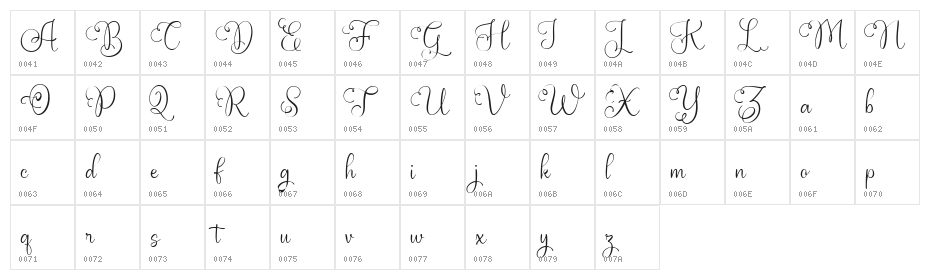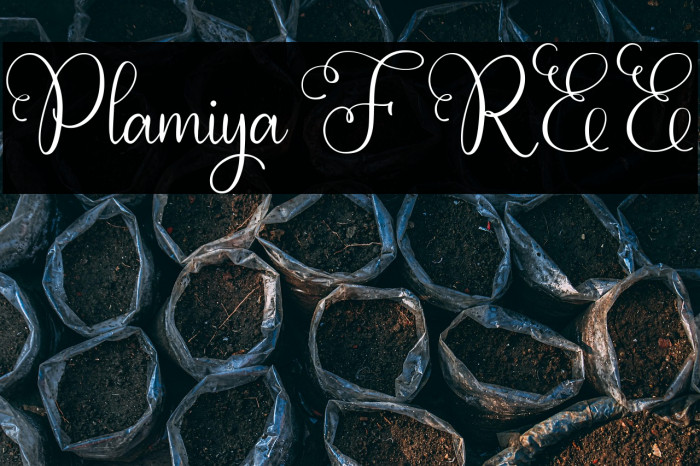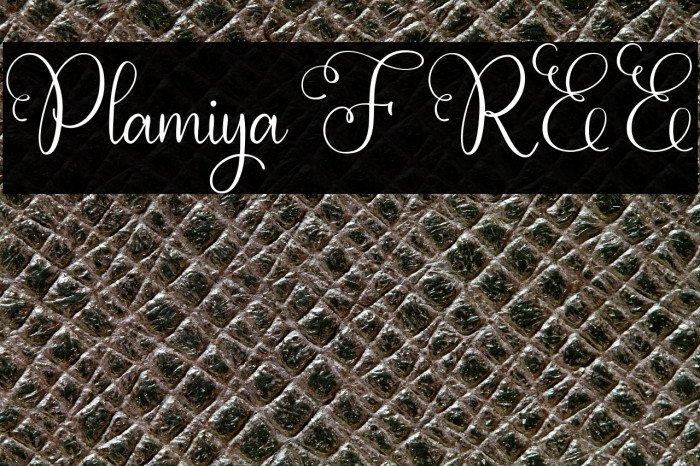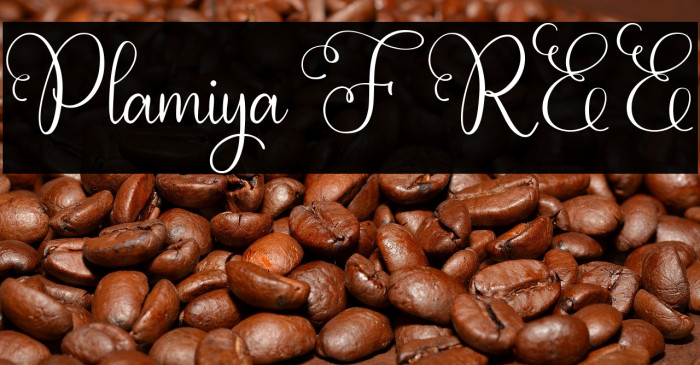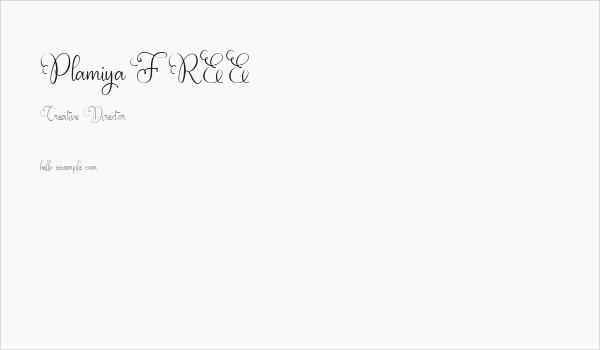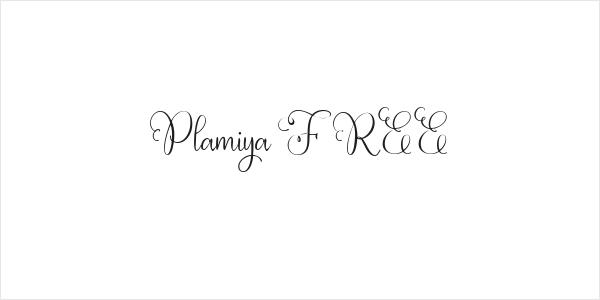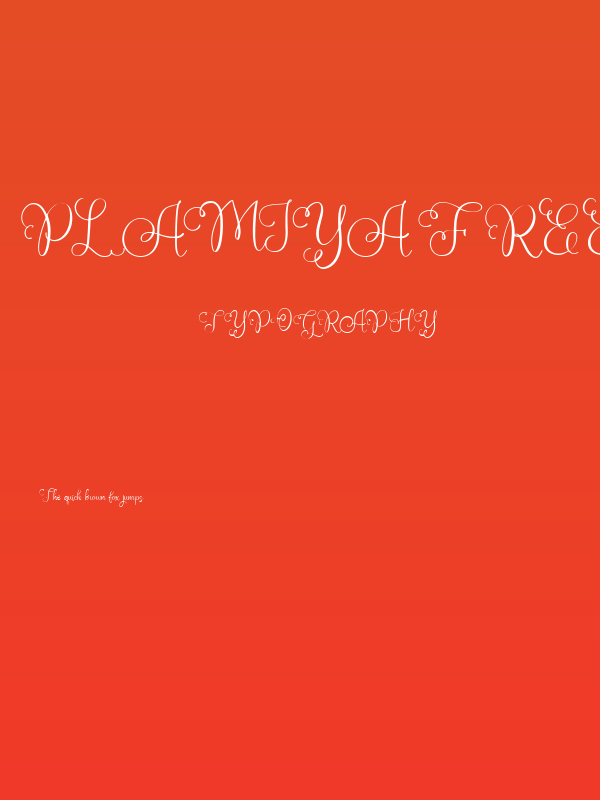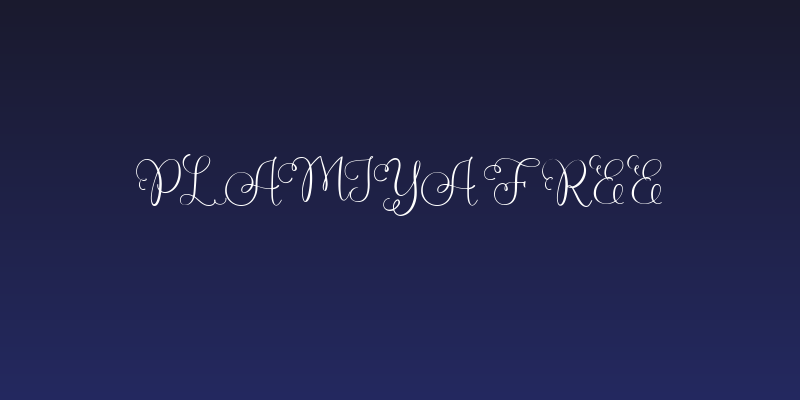
Plamiya FREE Font
Plamiya FREE Description
This elegant script font features intricate swirls and flourishes that give it a sophisticated and ornate appearance. The uppercase letters are particularly decorative, with loops and curls that extend from the main strokes, creating a sense of movement and fluidity. The lowercase letters maintain a more restrained elegance, with a consistent stroke width that ensures readability while still offering a touch of flair. This font is ideal for projects that require a touch of luxury and refinement, such as wedding invitations, formal event programs, or high-end branding materials. The overall design is both classic and modern, making it versatile for various applications.
| Overall Style | Elegant, Ornate |
| Use Case | Headlines, Invitations, Branding |
| Proposed Projects | Wedding invitations, formal event programs, high-end branding materials, luxury product packaging. |